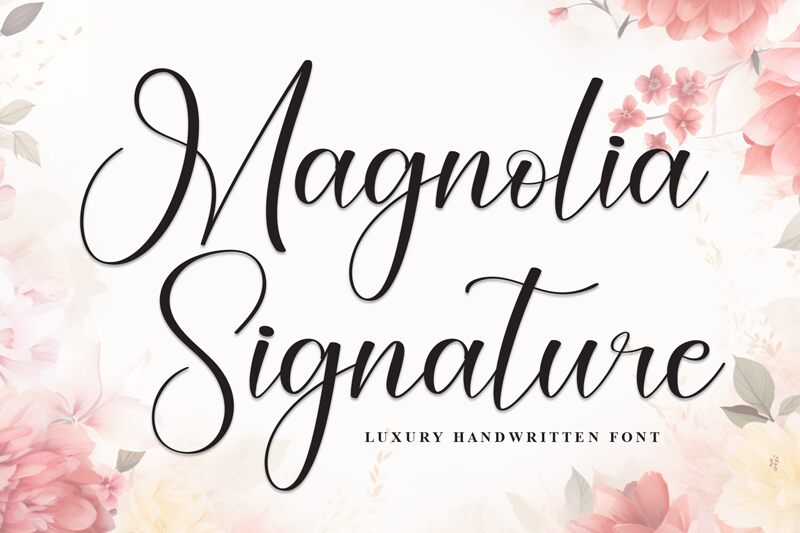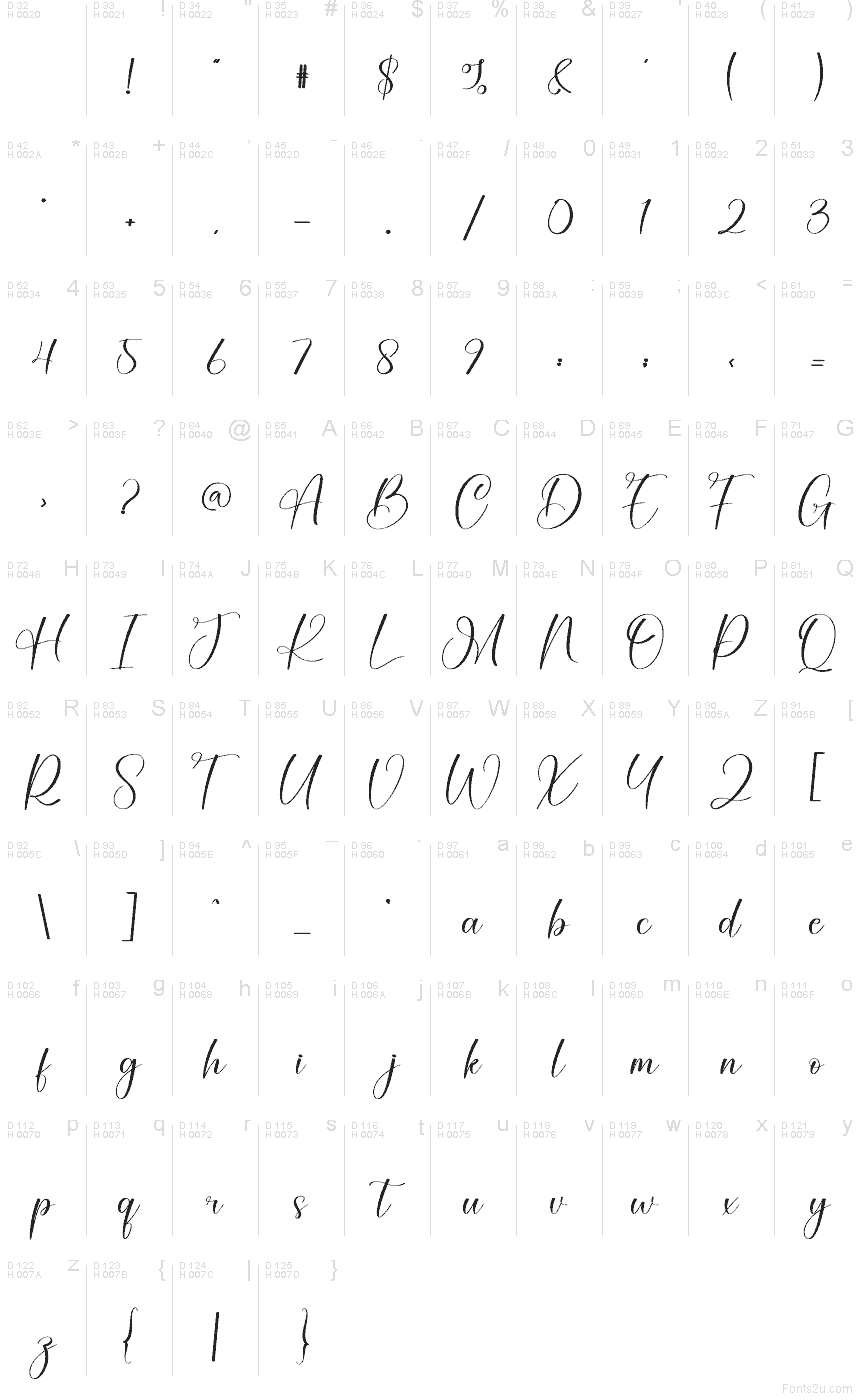
Magnolia Signature
Magnolia Signature font by Scratchones is a free calligraphy typeface that captures the feel of real ink flowing across smooth paper. Its looping strokes, airy spacing, and graceful swashes give every word a soft, handwritten elegance that feels personal rather than stiff or formal. There’s a gentle rhythm to the letters that makes even short phrases look like a crafted signature or a keepsake note.
Using Magnolia Signature, you can bring a romantic, handcrafted touch to wedding invitations, save-the-dates, boutique logos, product packaging, social media graphics, brand signatures, and heartfelt greeting cards. This free font shines at larger sizes where its curls and flourishes can breathe. For a polished look, pair it with a clean sans serif for body text and let Magnolia Signature handle names, headlines, and key accents.